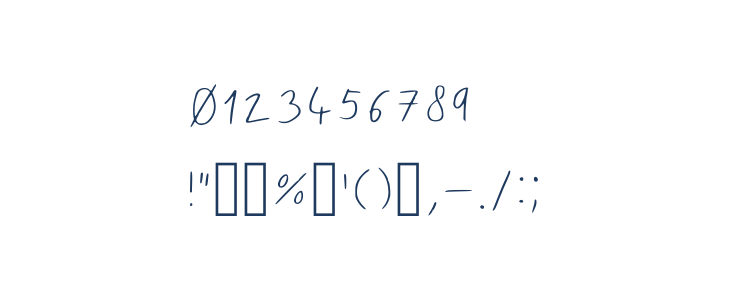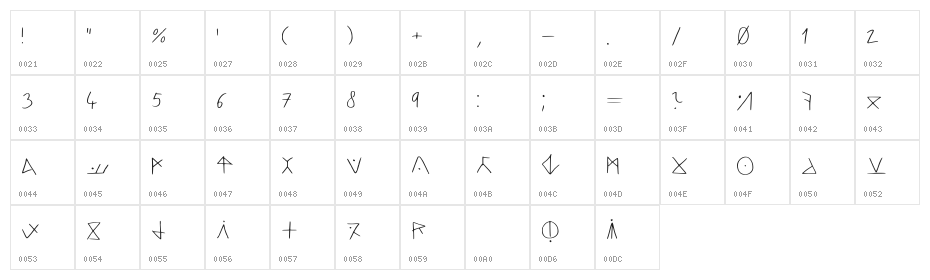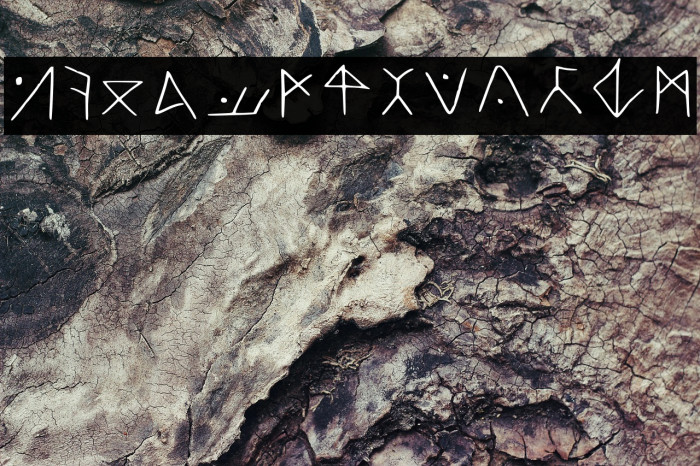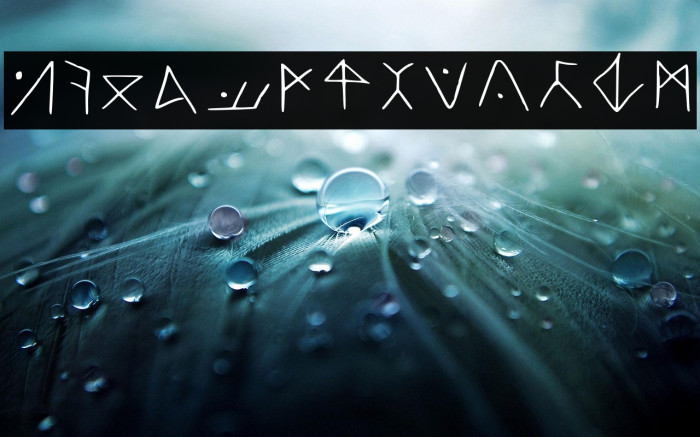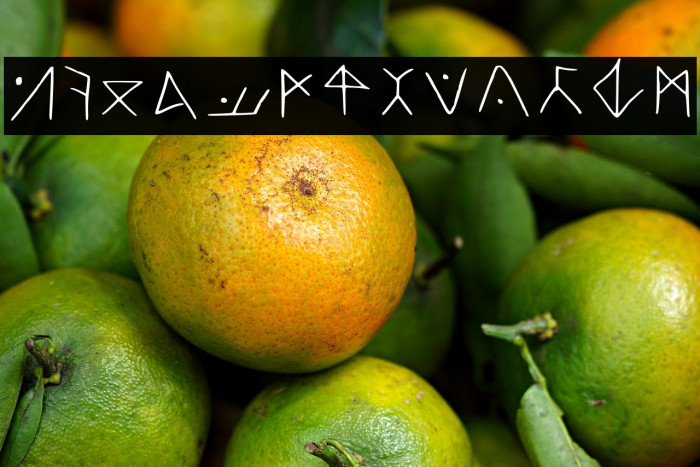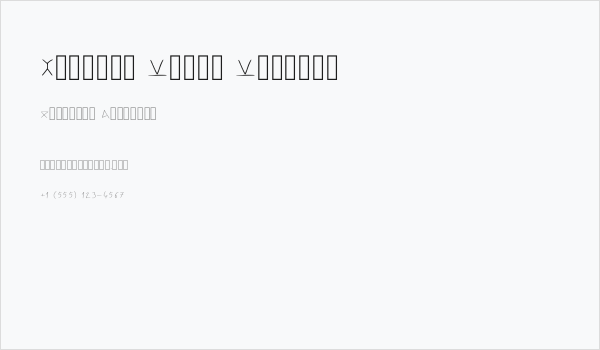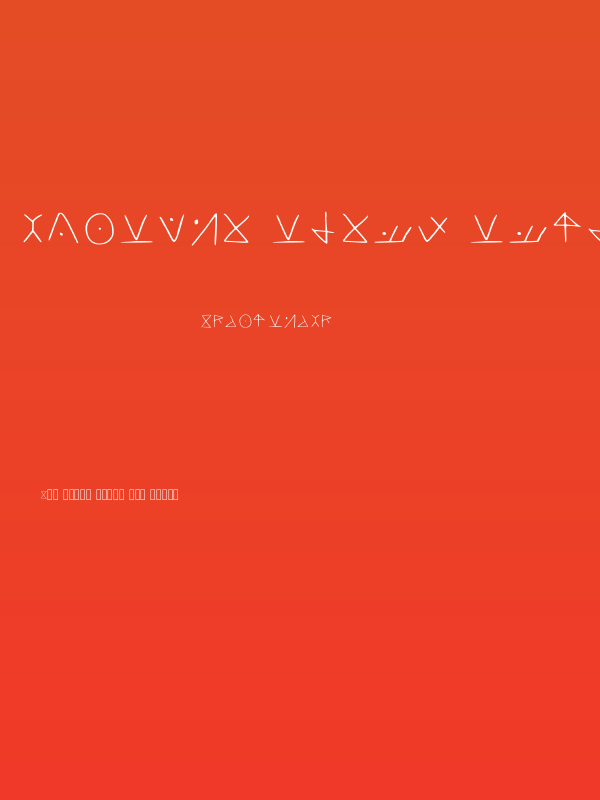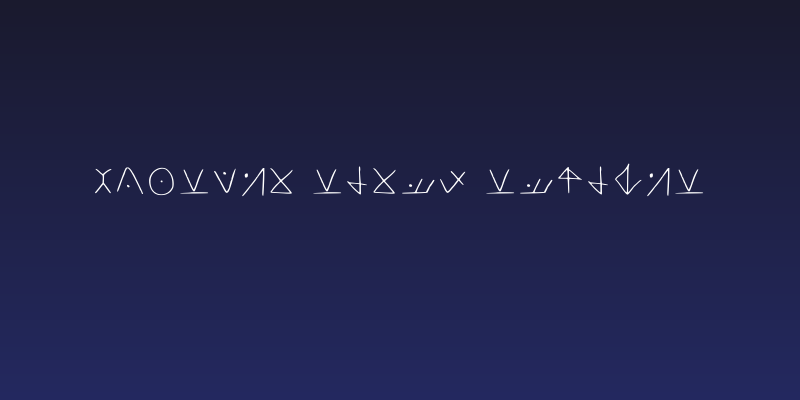
Hjorian Runes Regular Font
Hjorian Runes Regular Description
This font is a unique and decorative script that resembles ancient runic symbols. The characters are composed of straight lines and geometric shapes, giving it an enigmatic and mystical appearance. Each letter and number is distinct, with a handcrafted feel that suggests a historical or fantasy theme. The special characters are similarly styled, maintaining the overall aesthetic of the font. This design is perfect for projects that require a touch of mystery or an ancient, otherworldly vibe.
| Use Case | Logos, Titles, Themed Events |
| Proposed Projects | Ideal for fantasy-themed designs, game interfaces, book covers, or any project requiring an ancient or mystical aesthetic. |